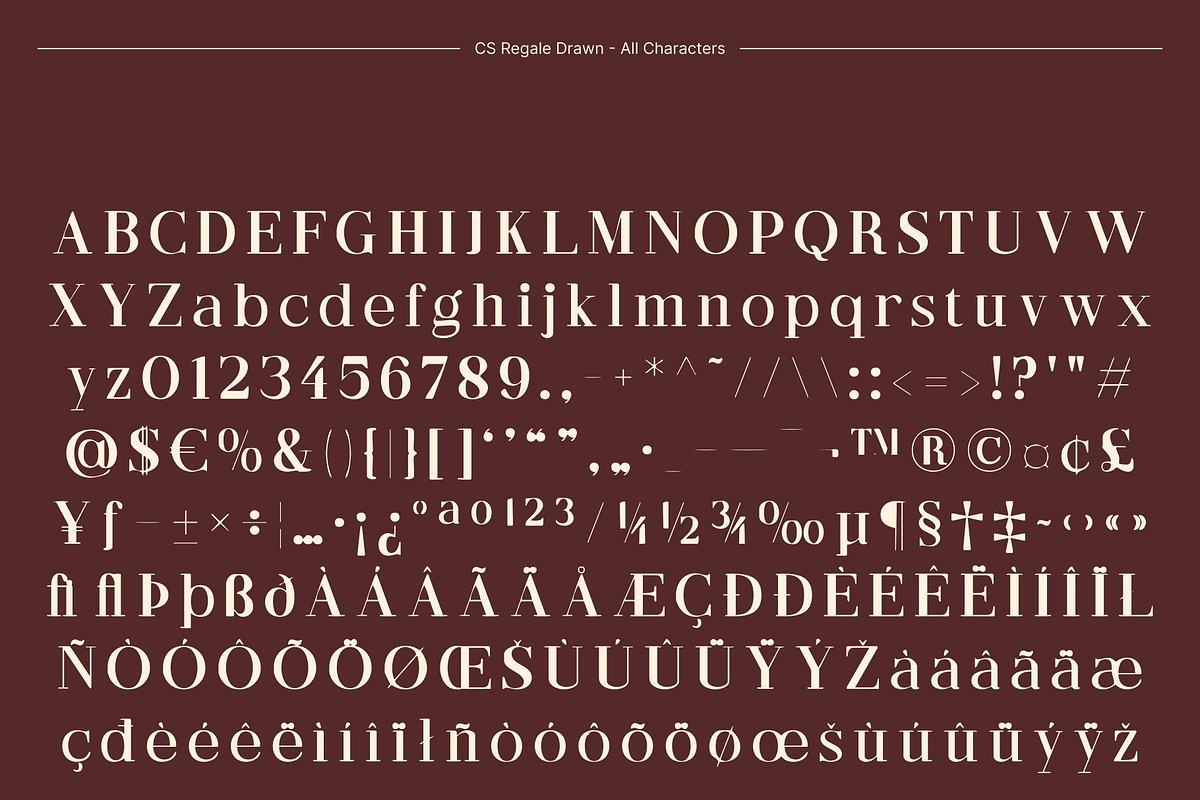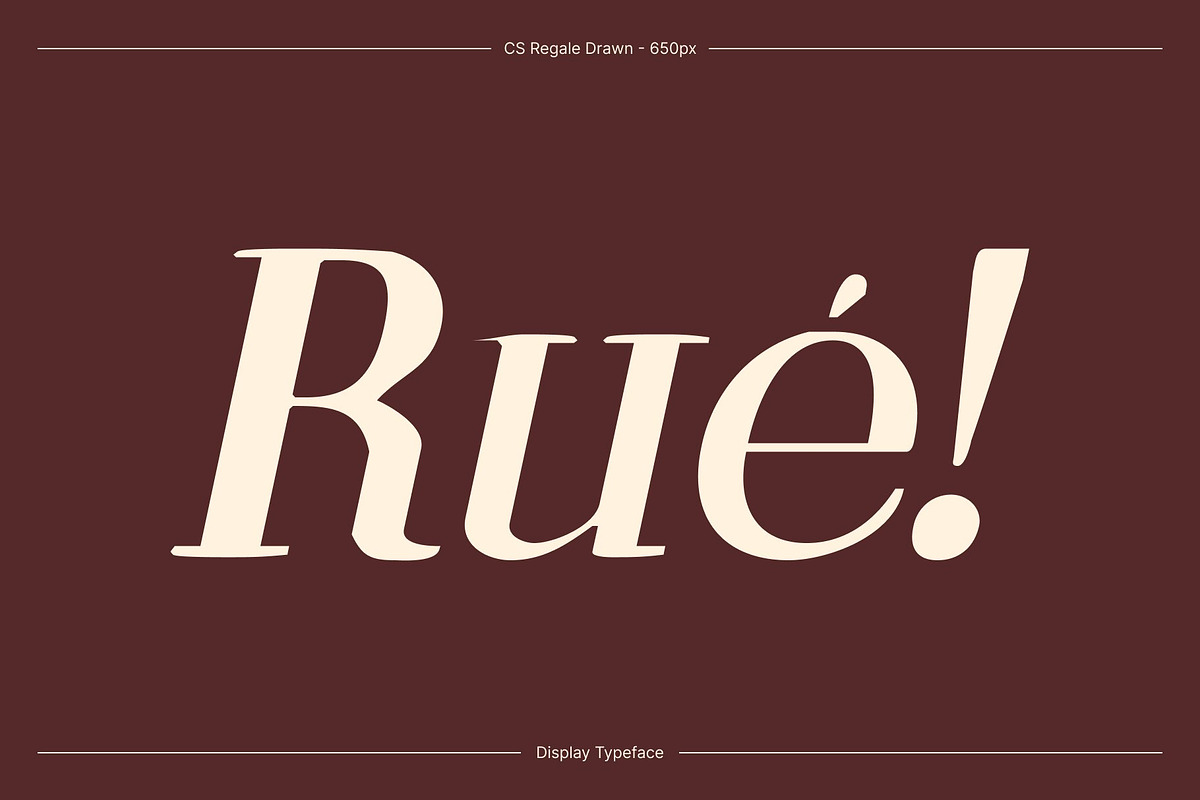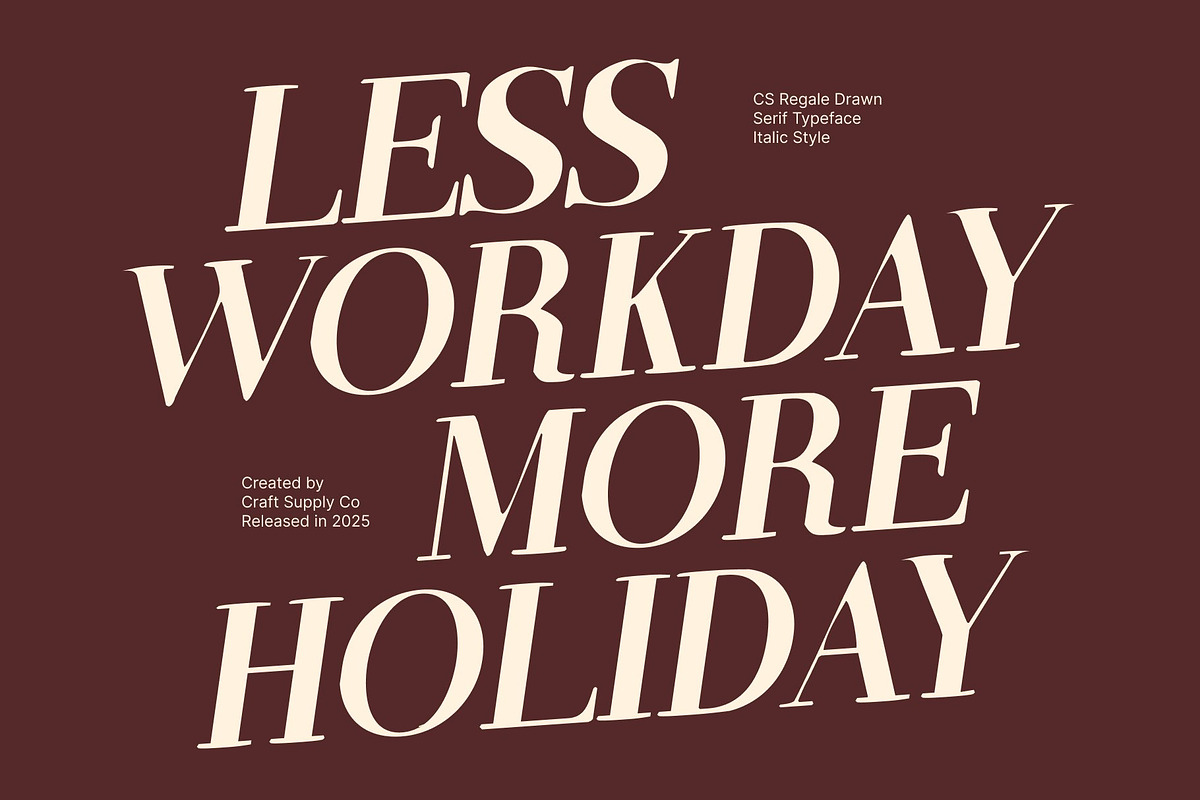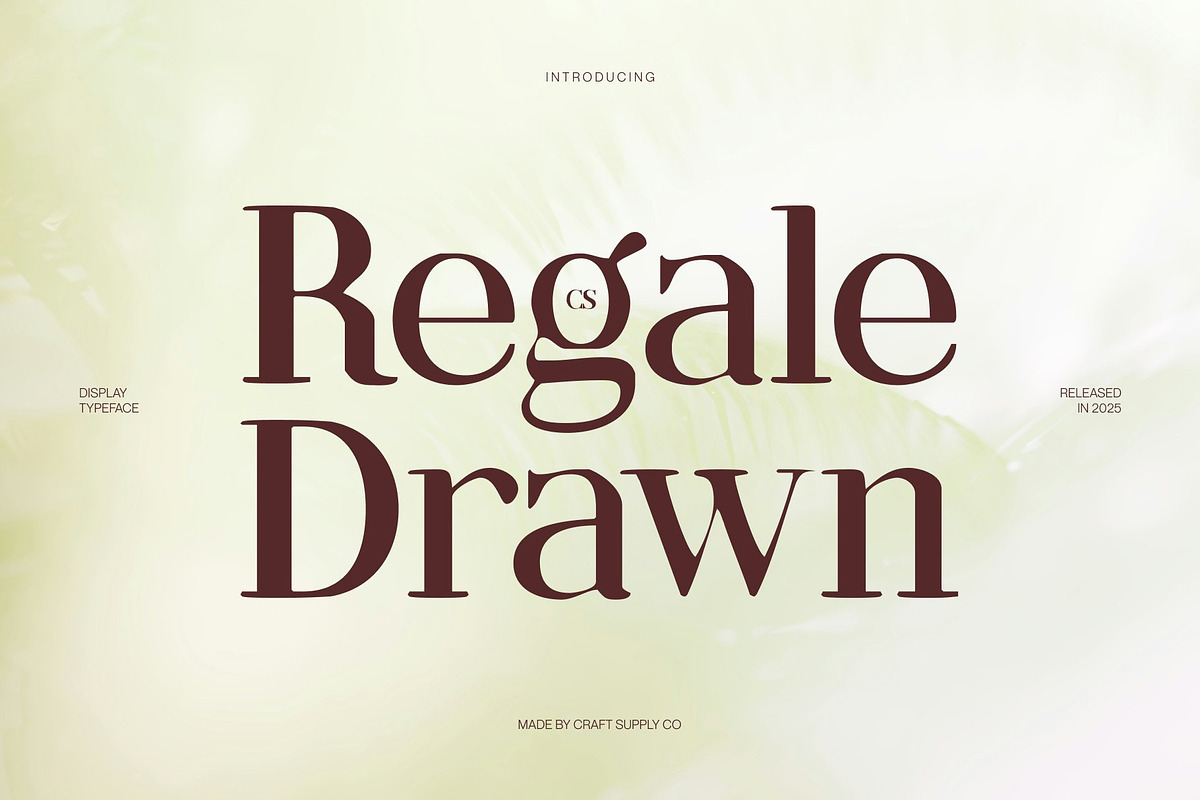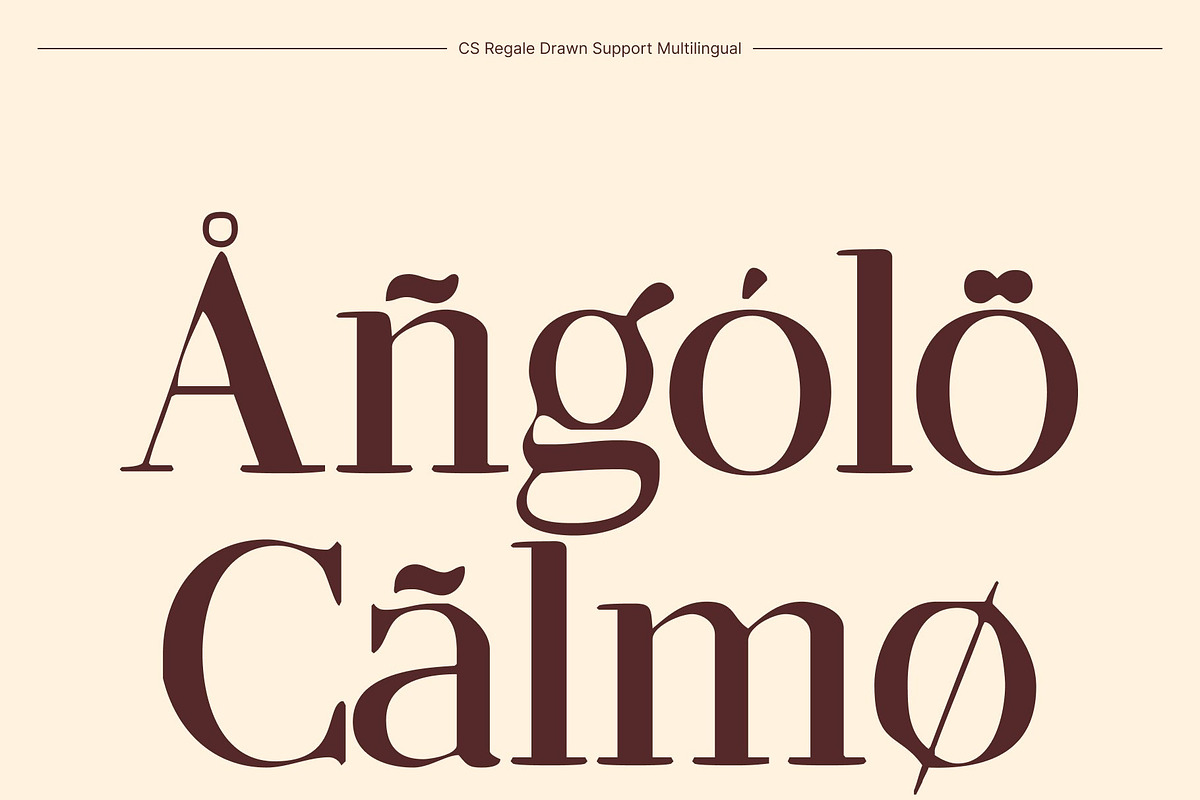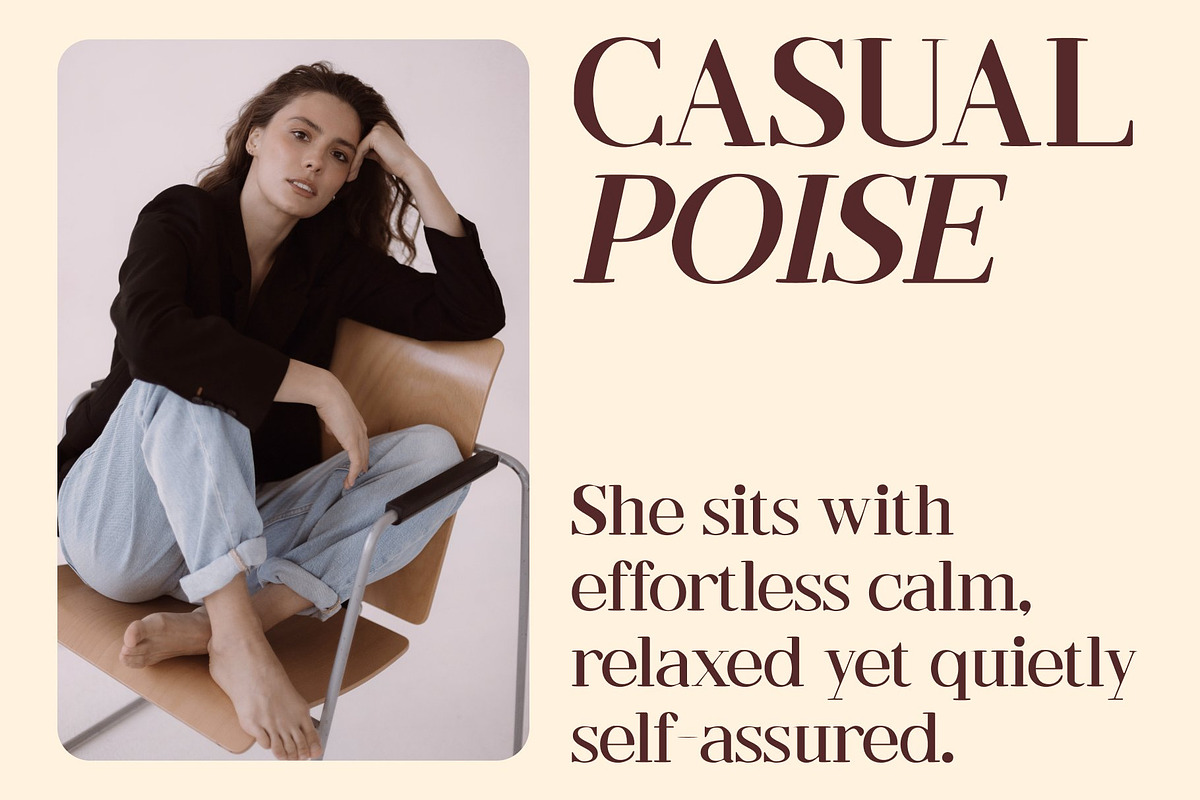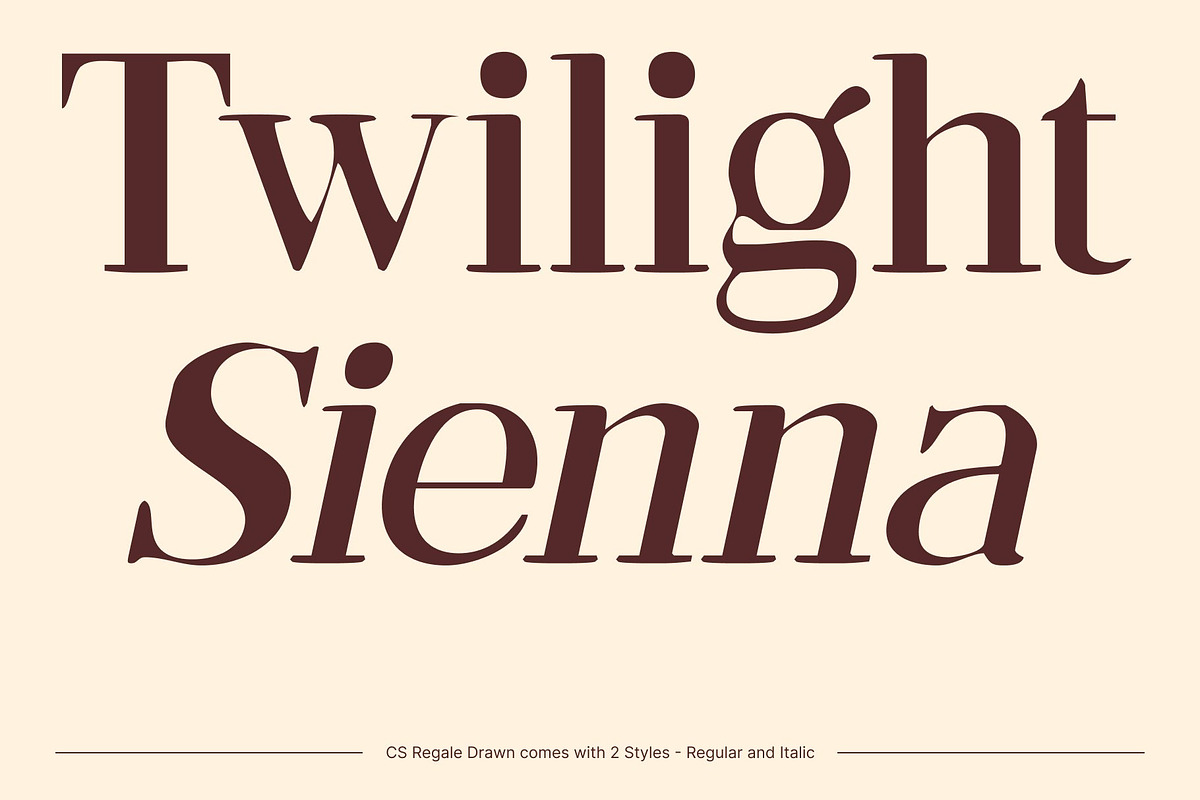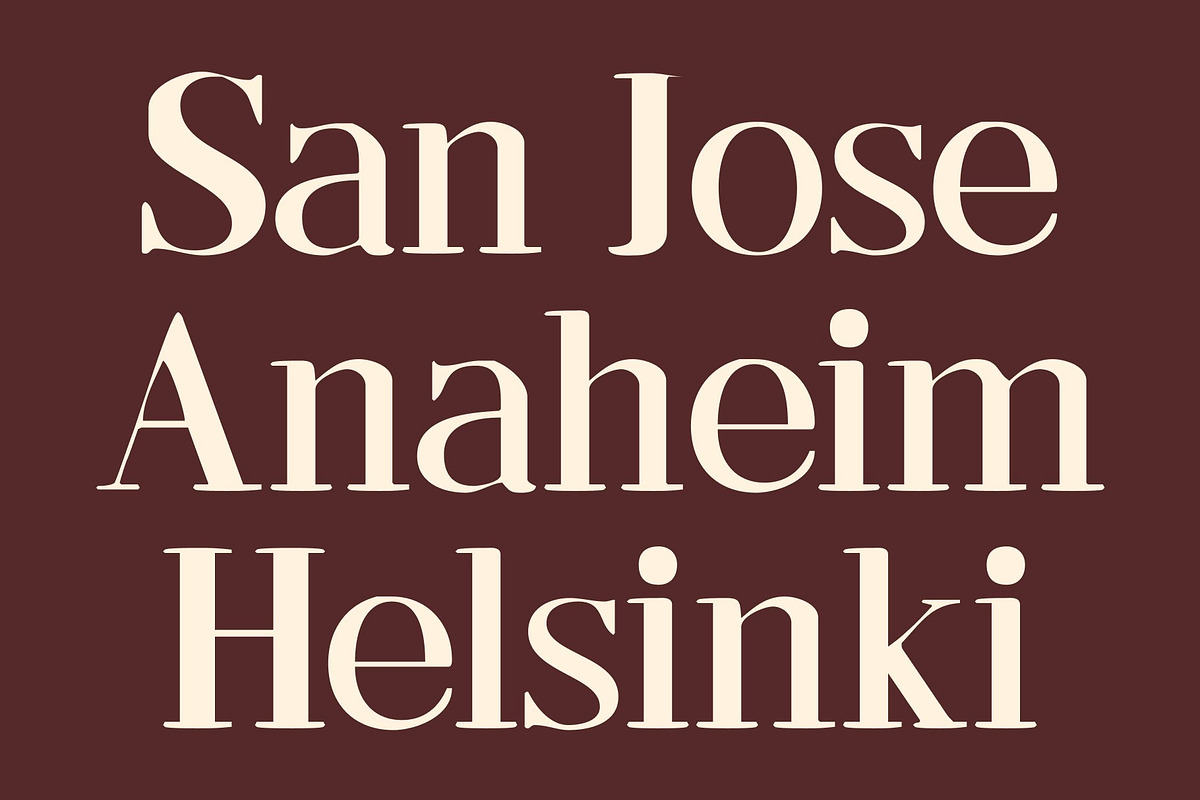
CS Regale Drawn
CS Regale Drawn – Elegant Serif Font with Refined Luxury
Elegant Serif Display with Handcrafted Sophistication This is an elegant serif display font designed to express polish, refinement, and timeless sophistication. Built with graceful proportions and meticulously shaped details, this typeface delivers an exclusive, high-end impression. The added drawn texture introduces subtle handcrafted character, enhancing its luxury feel without sacrificing elegance or clarity.
Refined Letterforms with Classic Elegance Each character is thoughtfully constructed with smooth curves, balanced contrast, and delicate serif details. The refined structure creates a harmonious rhythm that feels confident and graceful rather than excessive. The hand-drawn effect adds organic nuance and visual warmth, reinforcing a sense of craftsmanship while maintaining excellent readability.
Sophisticated Style for Premium Visual Identity This font excels in projects that demand a polished and upscale tone. Its elegant serif foundation communicates authority, exclusivity, and refinement, while the drawn finish adds personality and depth. This combination makes it ideal for luxury branding, editorial layouts, and premium product presentations that seek both tradition and character.
Perfect for High-End Branding and Editorial Use Designed for versatility within refined design contexts, this font performs beautifully in luxury branding, fashion editorials, packaging, logos, and promotional materials. Its timeless elegance ensures lasting appeal across both print and digital media. Whether used for headlines or signature typographic elements, this font brings confidence, prestige, and enduring style to every design it touches.